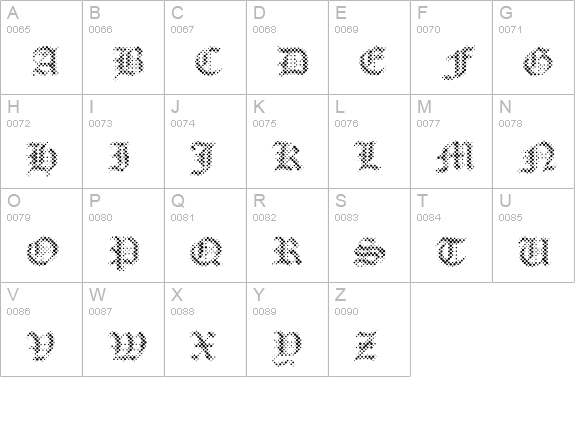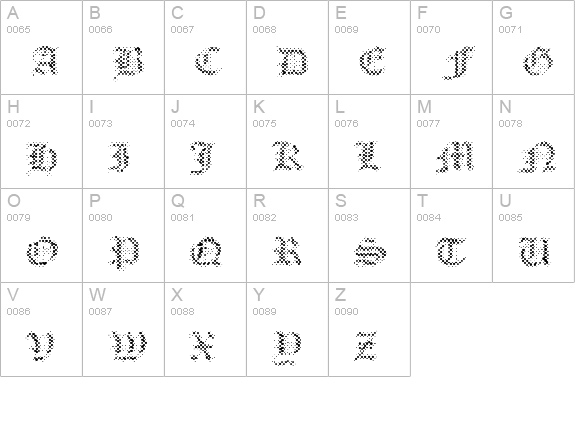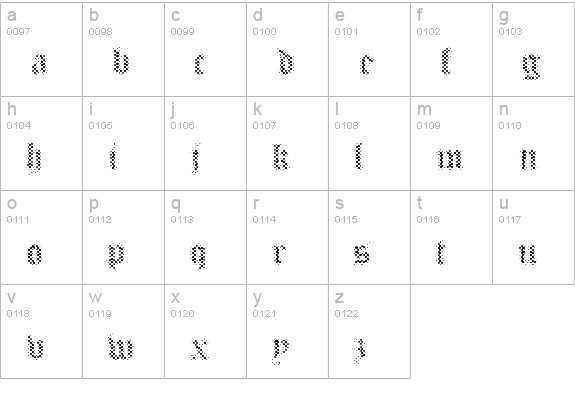
PalimpsestLight Font Details
PalimpsestLight is a stunning and elegant font that exudes sophistication and grace. With its delicate curves and stylish letterforms, this font is perfect for adding a touch of refinement to any project. The light weight of the font gives it a subtle and airy quality, making it ideal for use in designs that require a sense of lightness and delicacy. What sets PalimpsestLight apart is not just its beauty, but also the fact that it is available for free. Yes, that's right - this gorgeous font can be downloaded for free at FontsMarket.com. Whether you're working on a branding project, creating invitations, or designing a website, PalimpsestLight is sure to elevate your design with its timeless appeal. Don't miss out on this opportunity to enhance your projects with the elegance of PalimpsestLight. Download it for free today at FontsMarket.com and let your creativity shine!